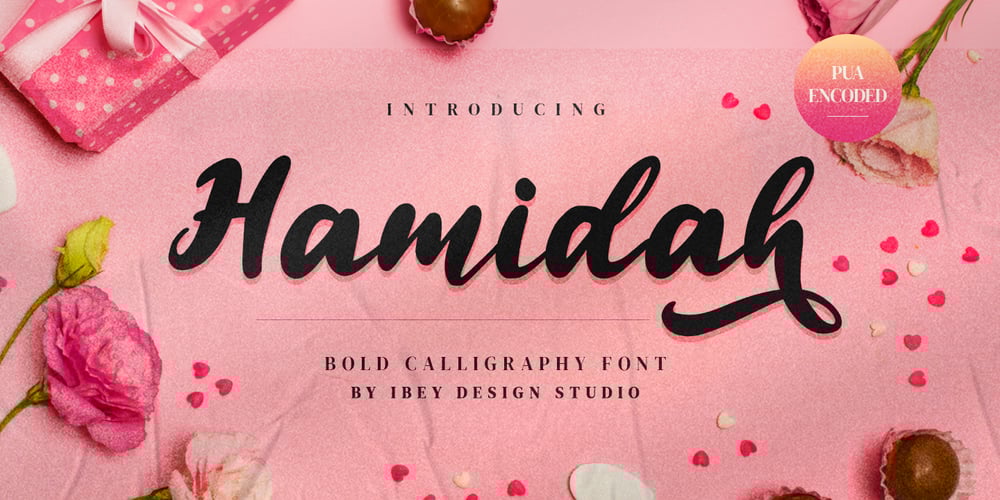
Hamidah Font Family was designed by Ikrar Bey Khubaib and published by IbeyDesign. Hamidah contains 1 styles and family package options. Hamidah Modern Calligraphy Font is a gorgeous and bold handwritten font. It reads as strong, confident, and dynamic and can add tons of nostalgic character to your designs.